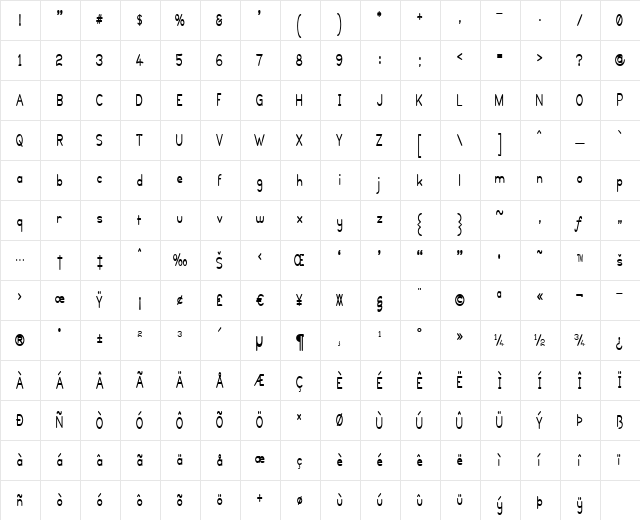
Calan Regular
| Designer | Graham Meade |
Design Context for Calan Typeface
Calan is a composed and adaptable typeface that performs quietly and consistently across a wide range of design contexts.